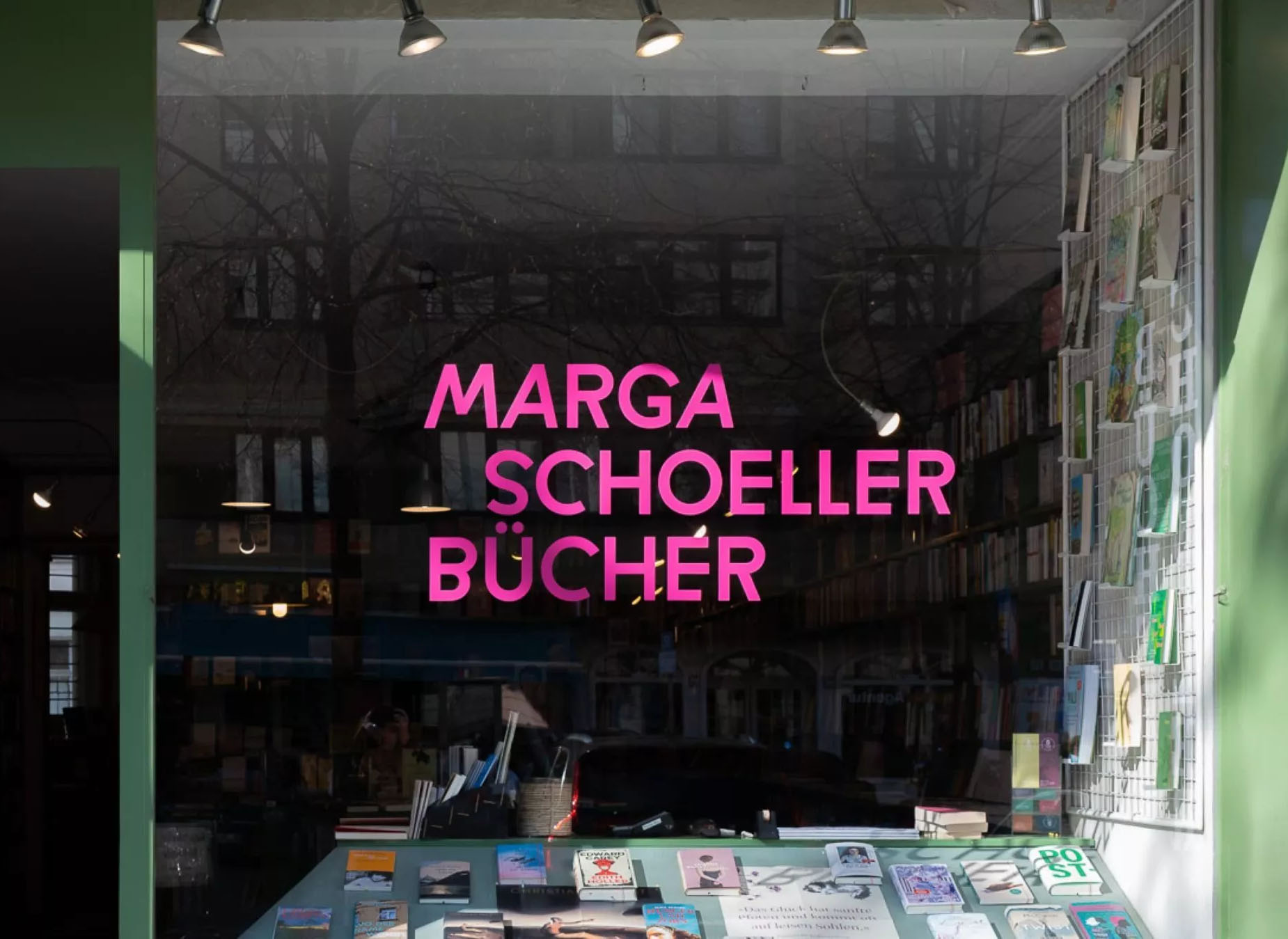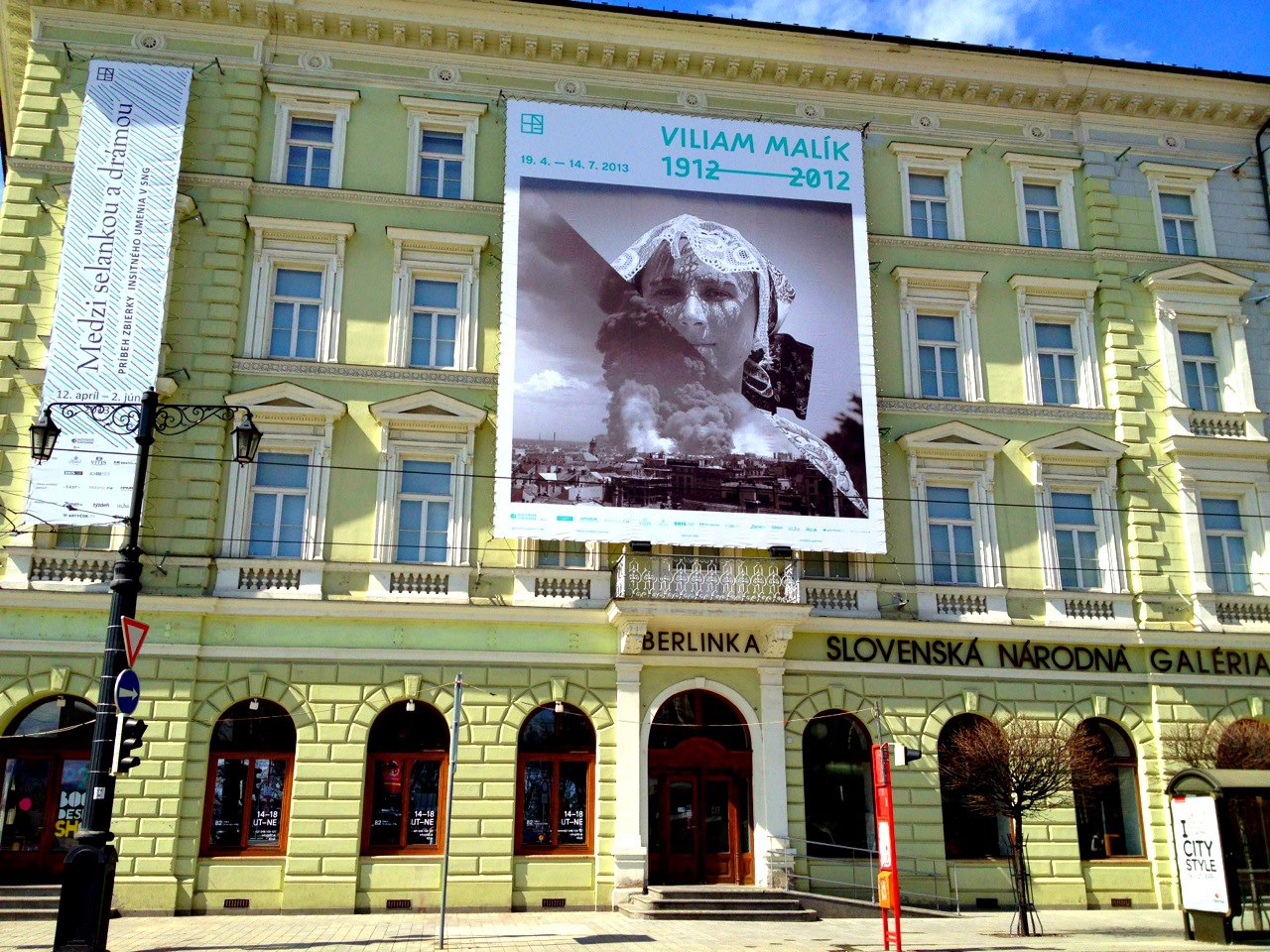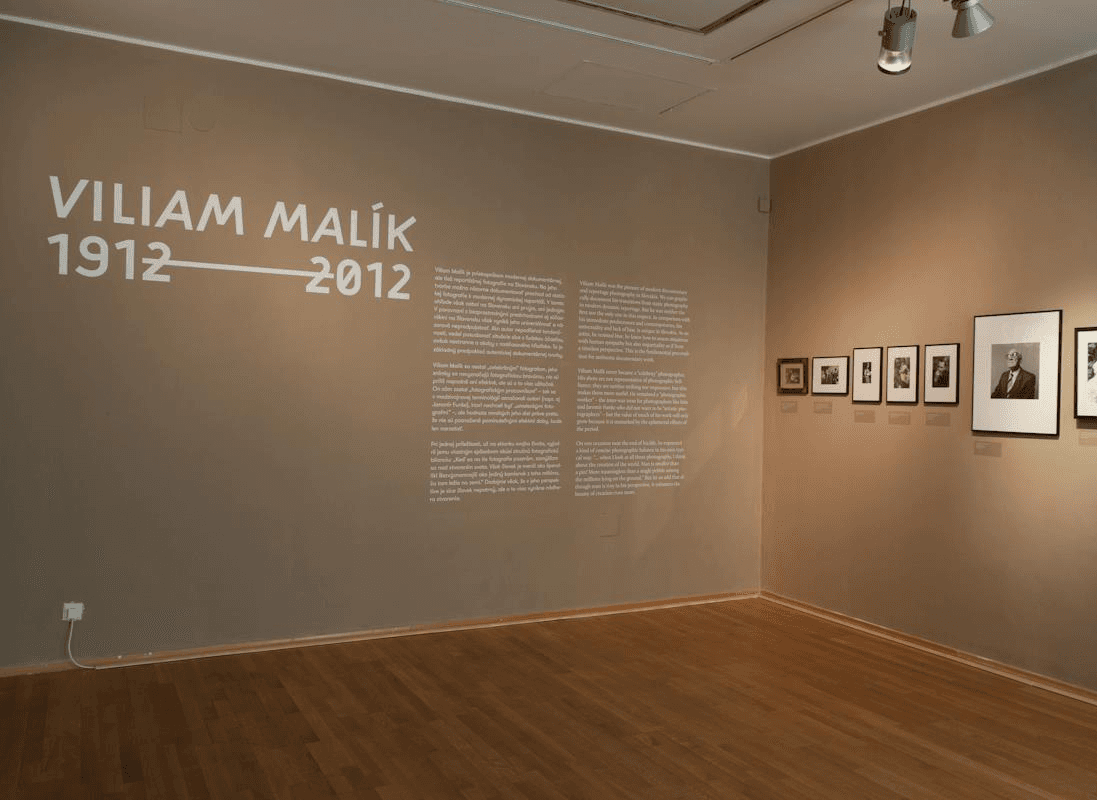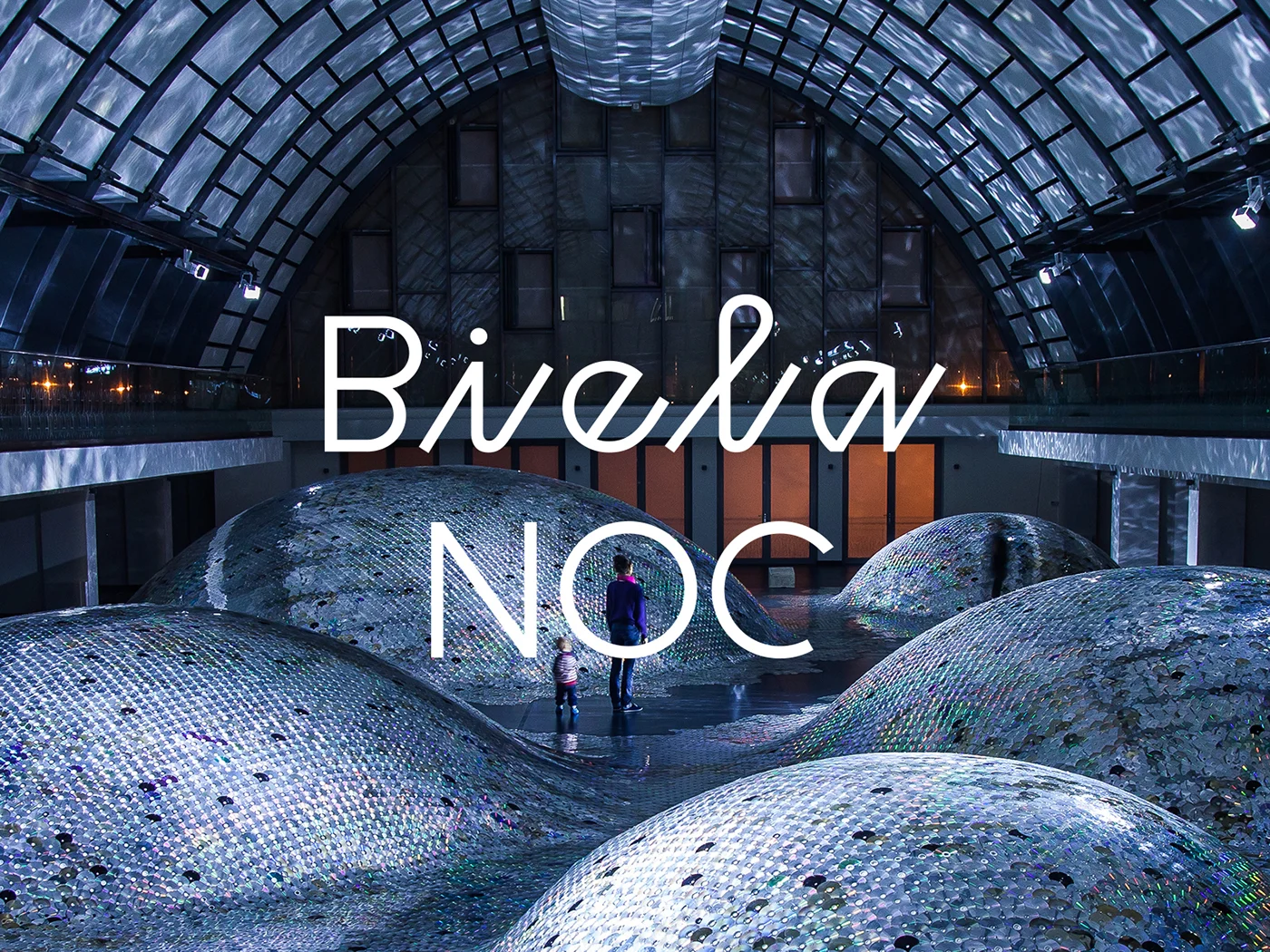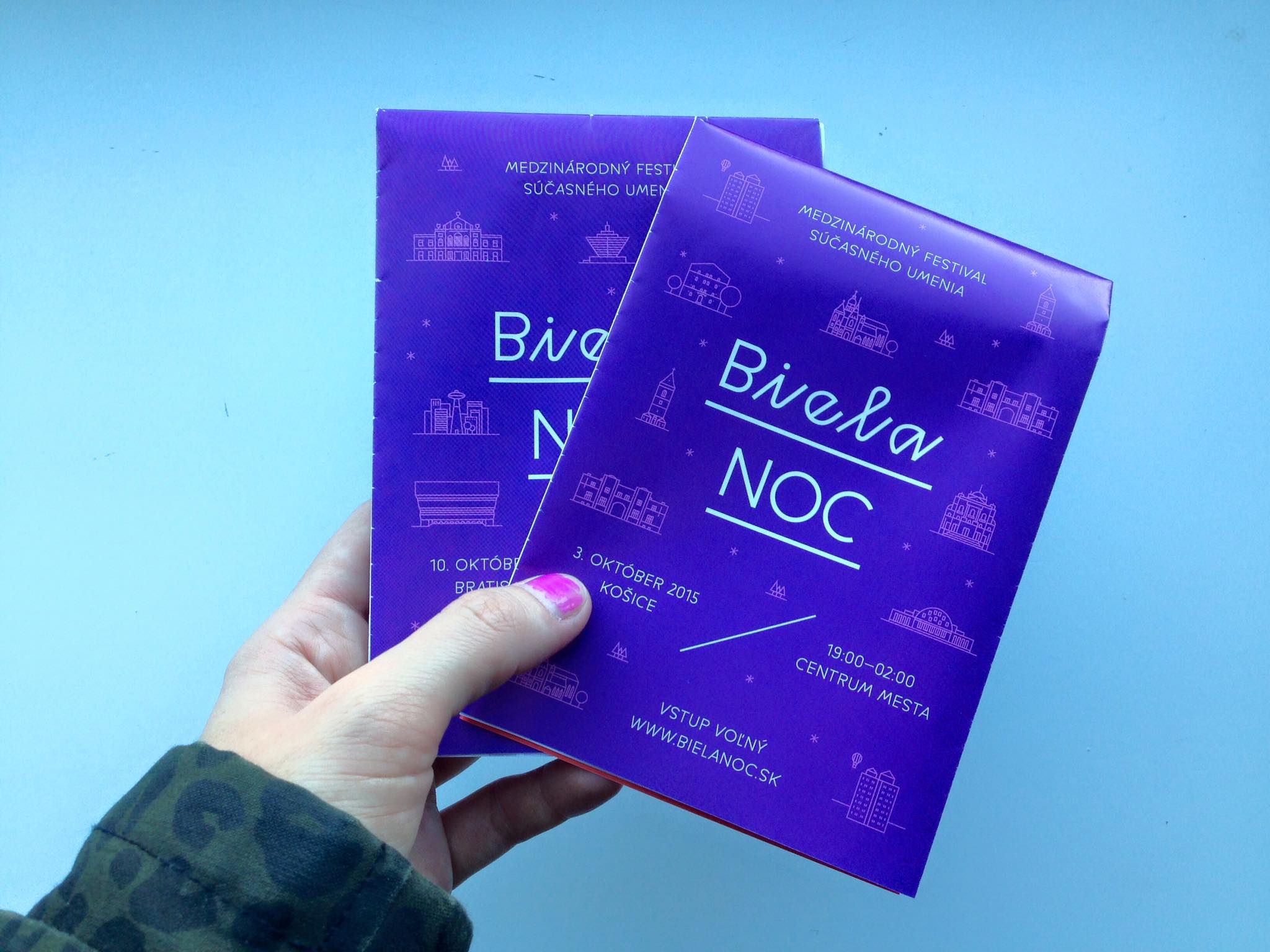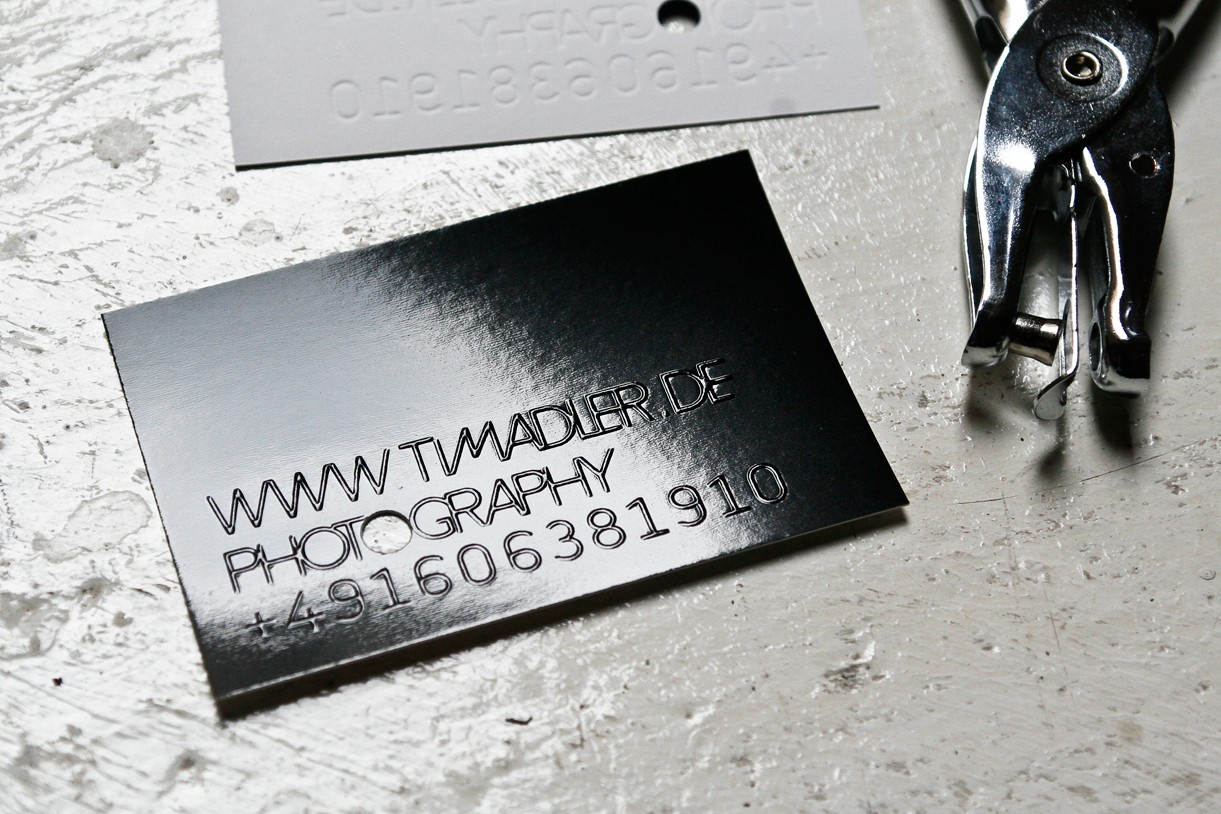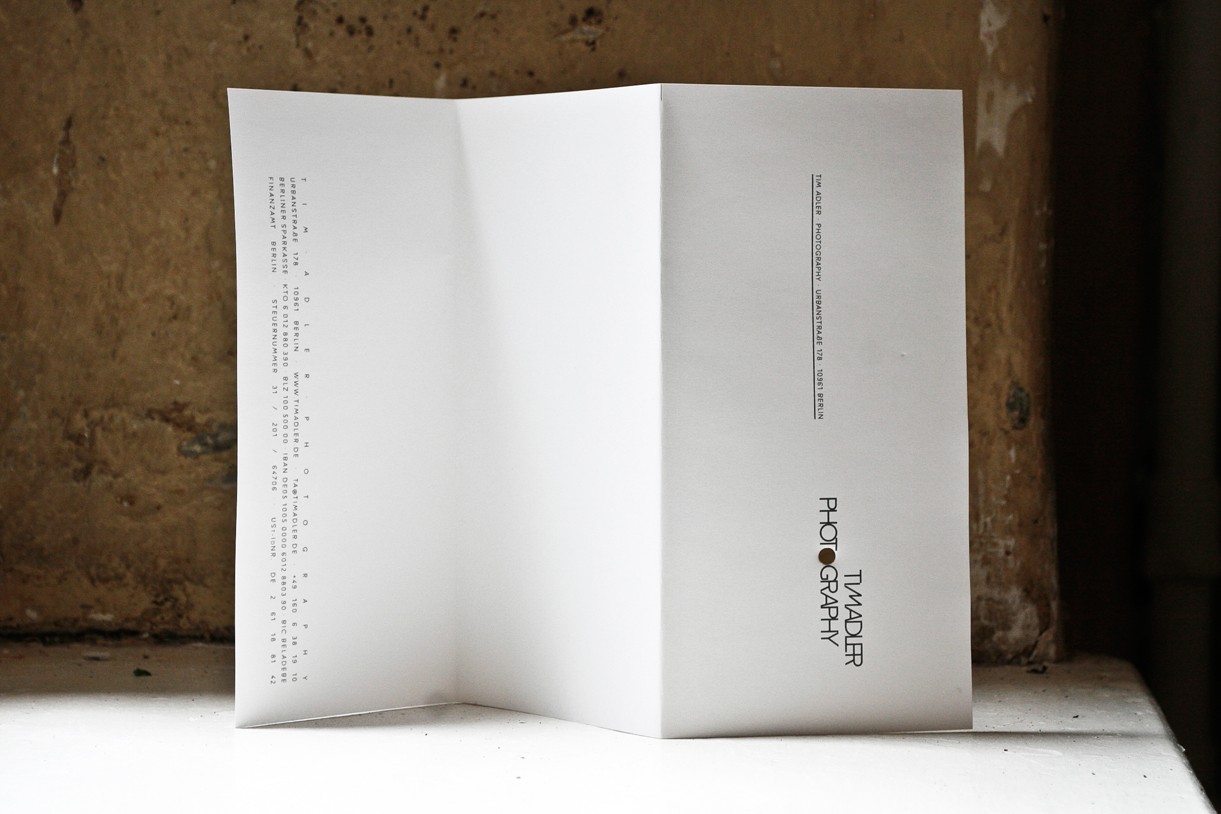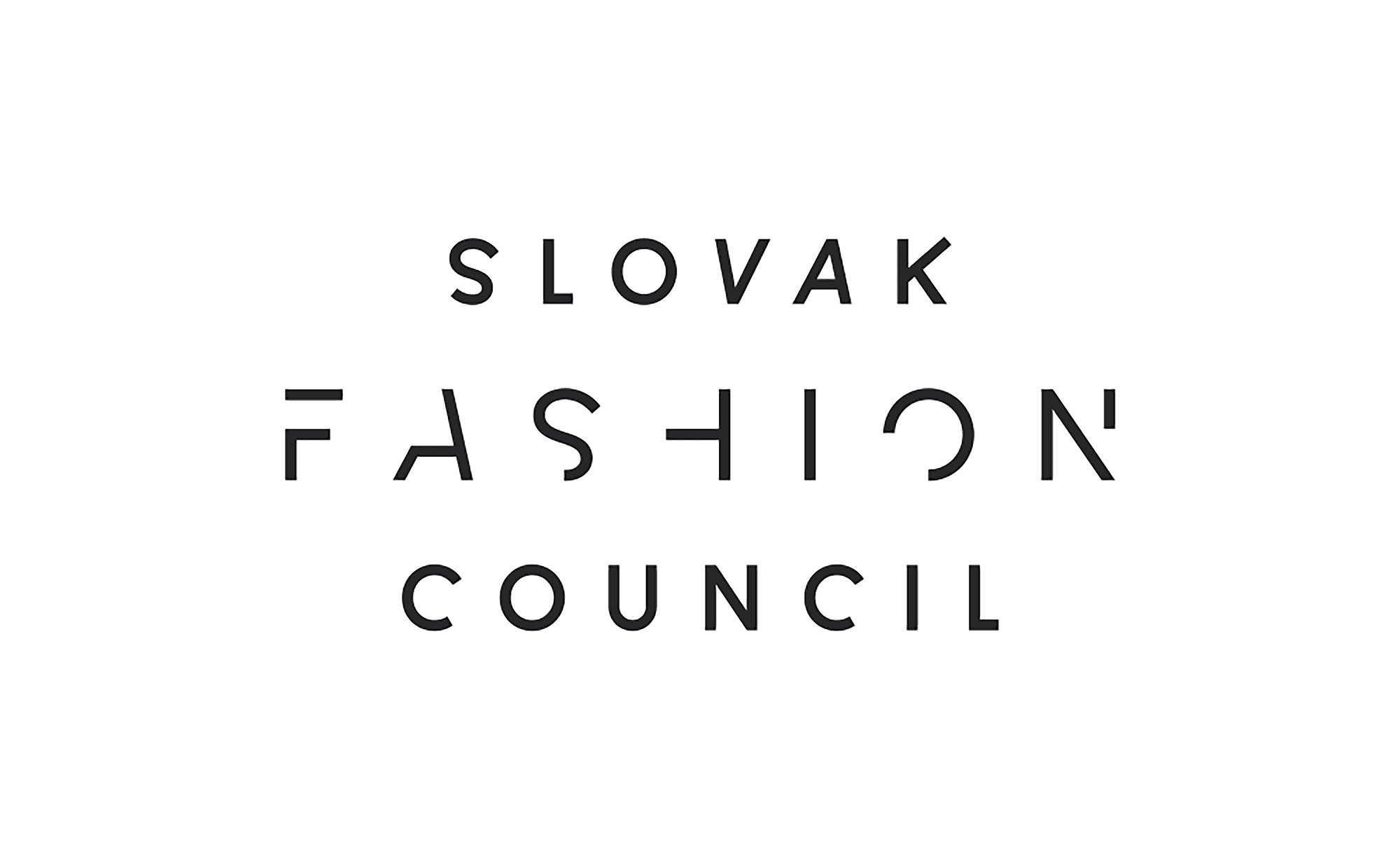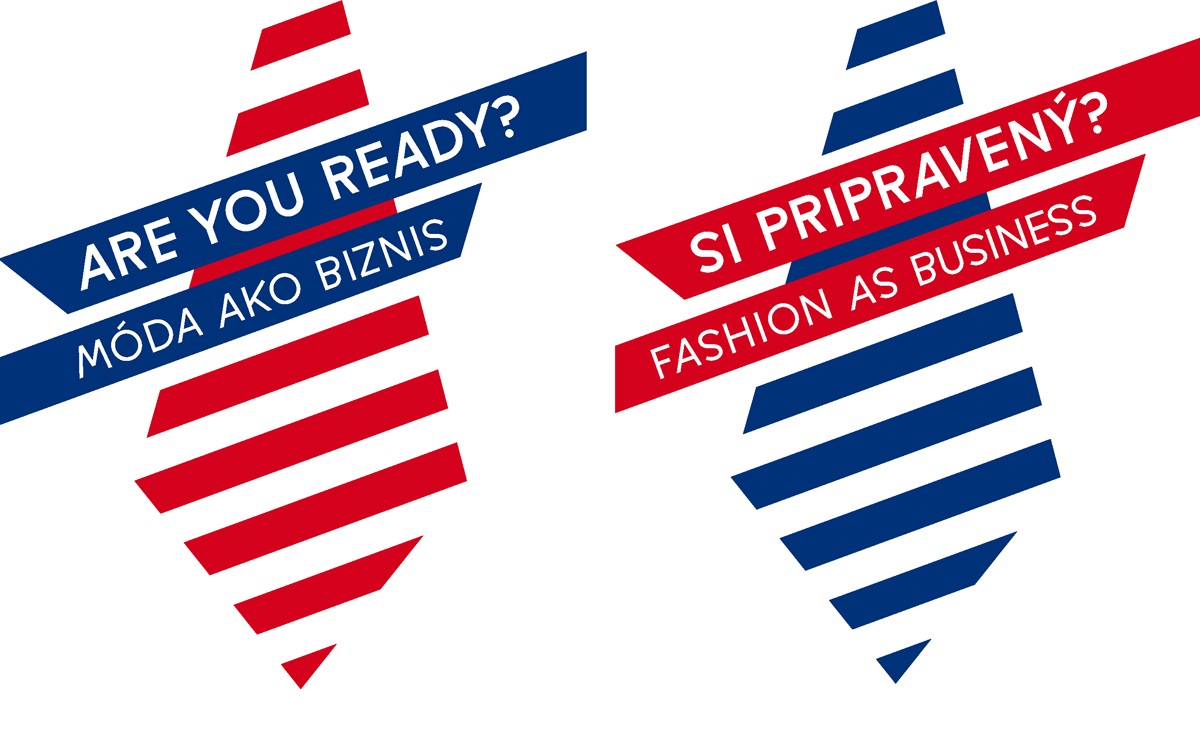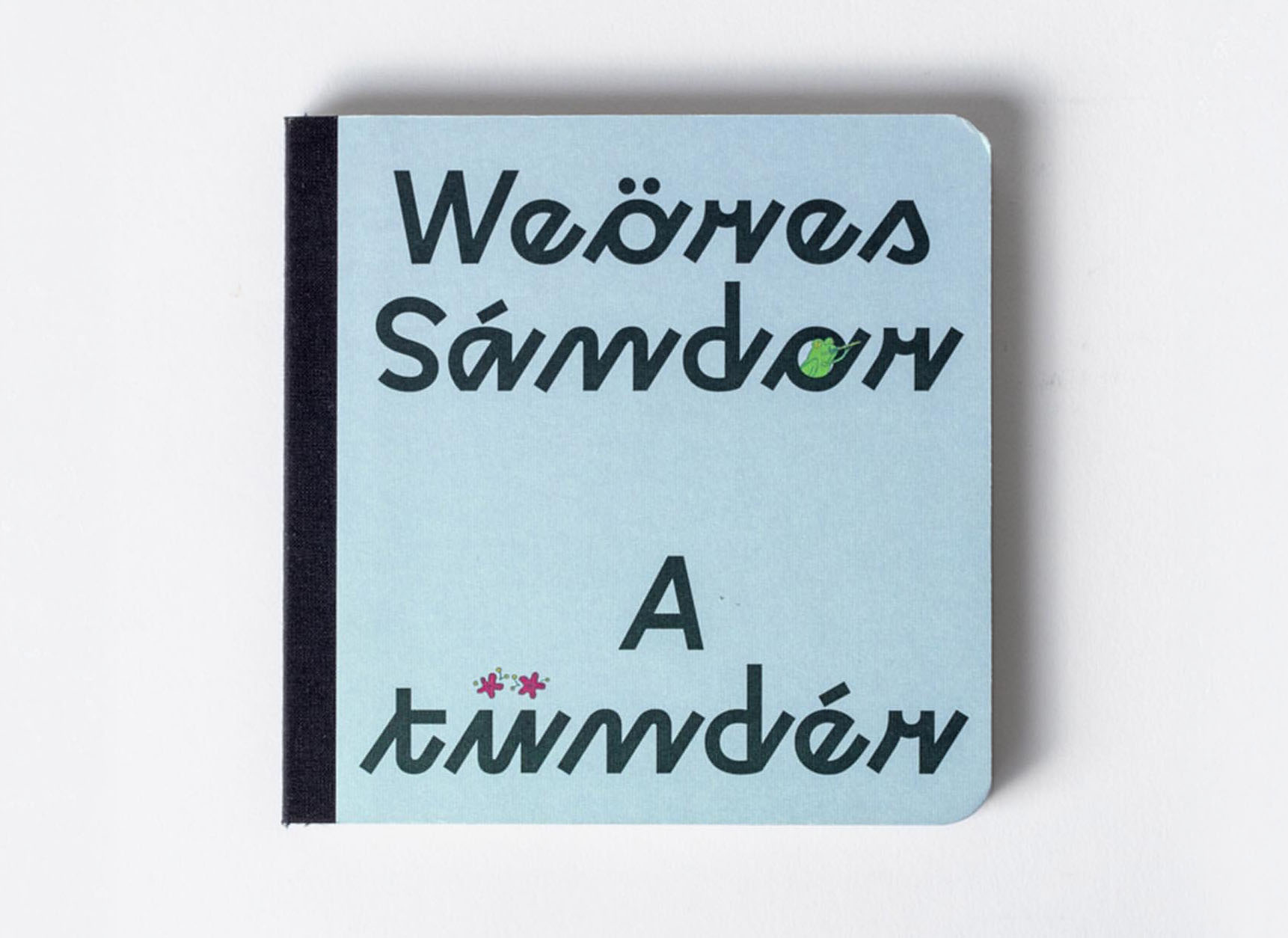
A geometric-script typeface influenced by schoolhand
A geometric-script typeface
influenced by schoolhand
• Rukou typeface in use for the visual identity of Marga Schoeller Bücherstube. / Design: Ta-Trung
• Rukou Typeface in use for the books Malík and Podstraský / Design: Palo Bálik
• Rukou Typeface in use for the visual identity of the exhibition at the SNG (Slovak National Gallery) / Design: Palo Bálik
• Rukou typeface in use for Biela Noc (White Night) festival. / Visual Identity: Mish
• Rukou Typeface in use for the visual identity of photographer / Photo: Tim Adler Photography
• Rukou Typeface in use for the "Tektonika paměti" (Tectonics of Memory) book / Design: Tomáš Trnobranský
• Rukou Typeface in use for Slovak Fashion Council logo and visual identity / Design: Michal Macko
• Rukou typeface in use for a children's book. / Illustration: Zita Csaba / Design: Ákos Polgárdi.
• Rukou Typeface in use for the "13 matematických príbehov" book / Design: Barbora Gavlakova, Vojto Ruman / Illustration: Viliam Slaminka
• Rukou Typeface in use for the "Poppy Milk Magazine" proposal
• Rukou Typeface in use for the book Ztracená země / Design: Mr Meadow
About Rukou Typeface
A geometric-script typeface influenced by schoolhand
Rukou typeface originated as a logo for a fashion designer. The idea was to make a fusion of a geometric typeface with the flavour of childish features. Rukou was inspired by school hand-writing models, but adds very specific and interesting features to it. Rather than focusing on readability, the primary goal was to have a unique type texture. This is the reason why lowercase is disconnected. The disconnected letters opened the possibility to create the special shapes for individual letters.
The typefaces consist of two different styles inside one font. You can choose to set your titles in uppercase, or titlecase/lowercase. As each style has a slightly different texture, there is the opportunity to combine them in interesting ways. The uppercase can even be set in small paragraphs.
2011
Ligatures, Discretionaly ligatures, Stylistic Alternates, All Caps, Lining Numbers, Tabular Lining Numbers, Slashed Zero, Fractions, Ordinals, Localised forms